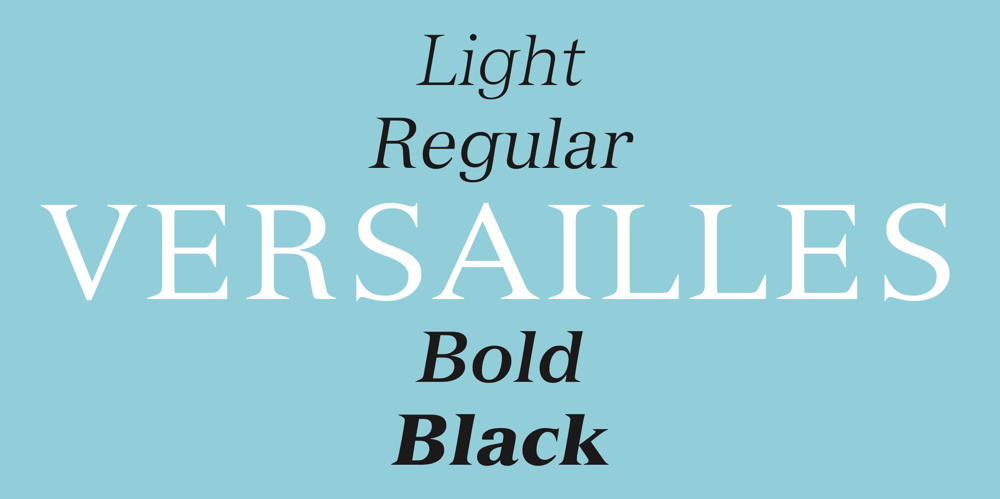
Versailles LT Font Family was designed by Adrian Frutiger and published by Linotype. Versailles LT contains 8 styles and family package options. The origins of the font Versailles go back to the 19th century in France when, with the introduction of lithography, alphabets could contain freer forms. The basic forms are Modern Face with triangular serifs. The direct influence for Versailles was the writing on the back of the memorial to Charles Garnier, the architect of the Paris Opera. Versailles is a classic font for advertisements, perfect for shorter texts and titles/headlines and it makes an impression of elegance and strength.